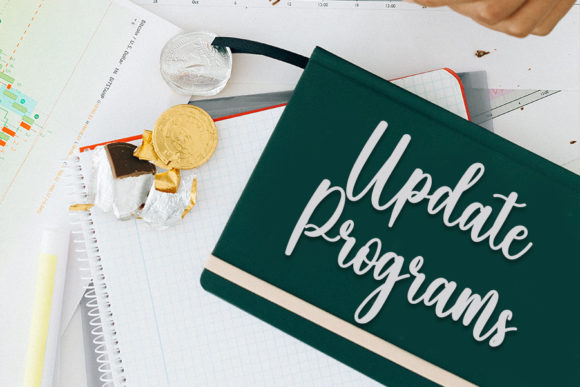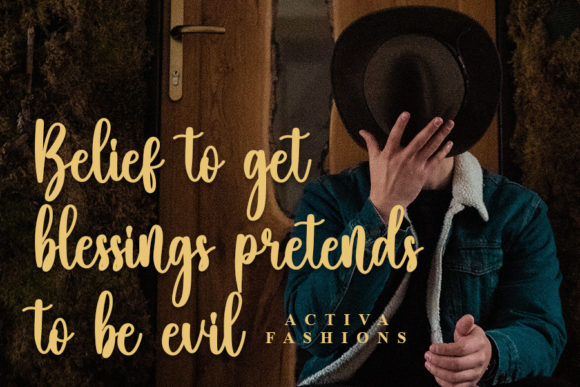
About Slims Font
Meet “Slim,” a beautiful and refined script font that exudes a classy, elegant, and modern charm. This font is a versatile choice, suitable for a range of applications including logos, branding, invitations, stationery, wedding designs, social media posts, and more. With its sophisticated aesthetic, “Slim” adds a touch of style and grace to your creative projects.
The classy and elegant look of “Slim” makes it a perfect companion for crafting logos that leave a lasting impression. Its refined script offers a modern yet timeless quality, ensuring your brand identity exudes sophistication.
For invitations and stationery, “Slim” brings a touch of grace and elegance to your designs, creating a captivating visual experience. The font’s beautiful script enhances the overall aesthetic, making it ideal for special occasions like weddings or formal events.
Social media posts come to life with the modern and stylish flair of “Slim.” Its versatility allows it to adapt seamlessly to various digital platforms, ensuring your content stands out with a touch of sophistication.
The PUA encoding feature of “Slim” adds another layer of convenience, allowing you to access a variety of glyphs and ligatures effortlessly. This capability empowers you to customize and enhance your designs with ease, making your creative process smooth and enjoyable.
In summary, “Slim” is more than just a font; it’s a refined design tool that elevates your creative projects. With its classy and modern appeal, this font becomes a versatile asset in your toolkit, bringing sophistication to every application, from logos to social media posts.